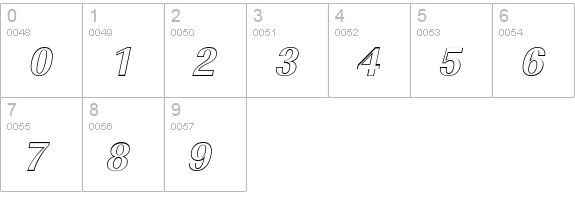
ImperialOu-BoldItalic is a stunning and elegant font that exudes a sense of grandeur and sophistication. Its unique blend of boldness and italics creates a striking visual impact, making it perfect for projects that require a touch of luxury and class. The intricate details and clean lines of ImperialOu-BoldItalic add a touch of refinement to any design, making it a versatile choice for a wide range of applications. Best of all, ImperialOu-BoldItalic is available for free download at FontsMarket.com. Whether you're working on a branding project, a wedding invitation, or simply want to elevate your designs with a touch of elegance, ImperialOu-BoldItalic is the ideal font choice. Download it today and add a touch of luxury to your creative projects.